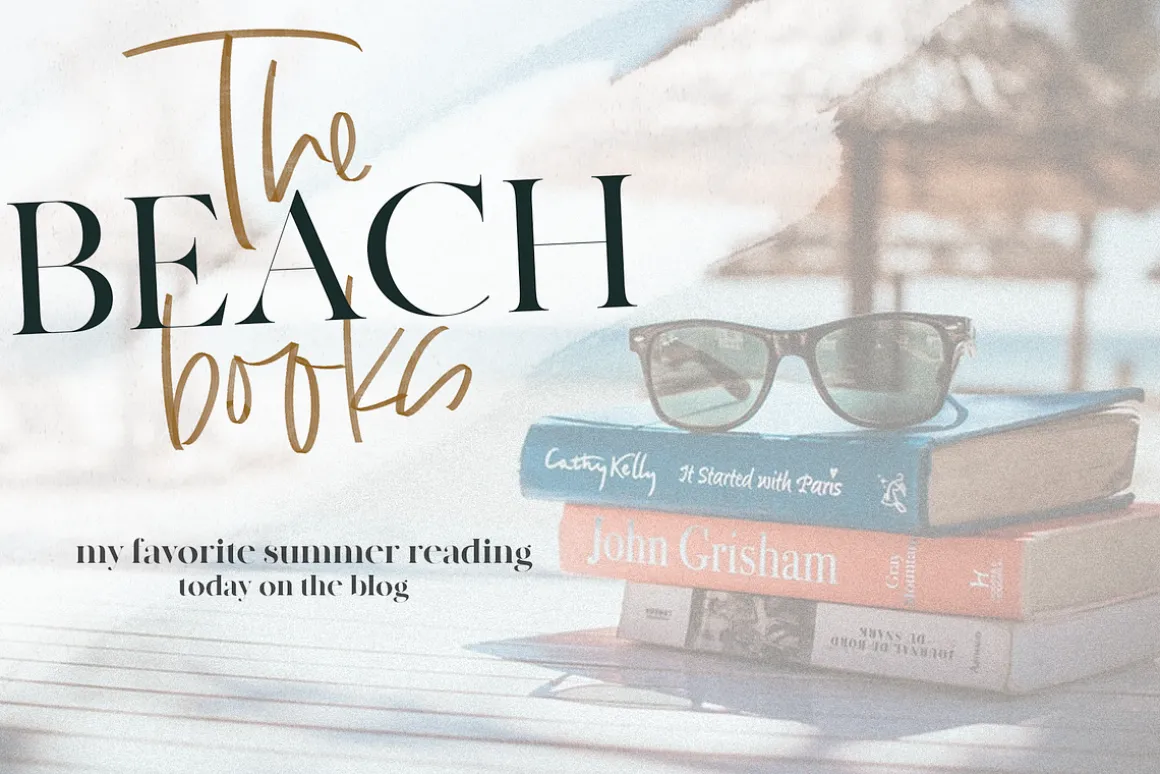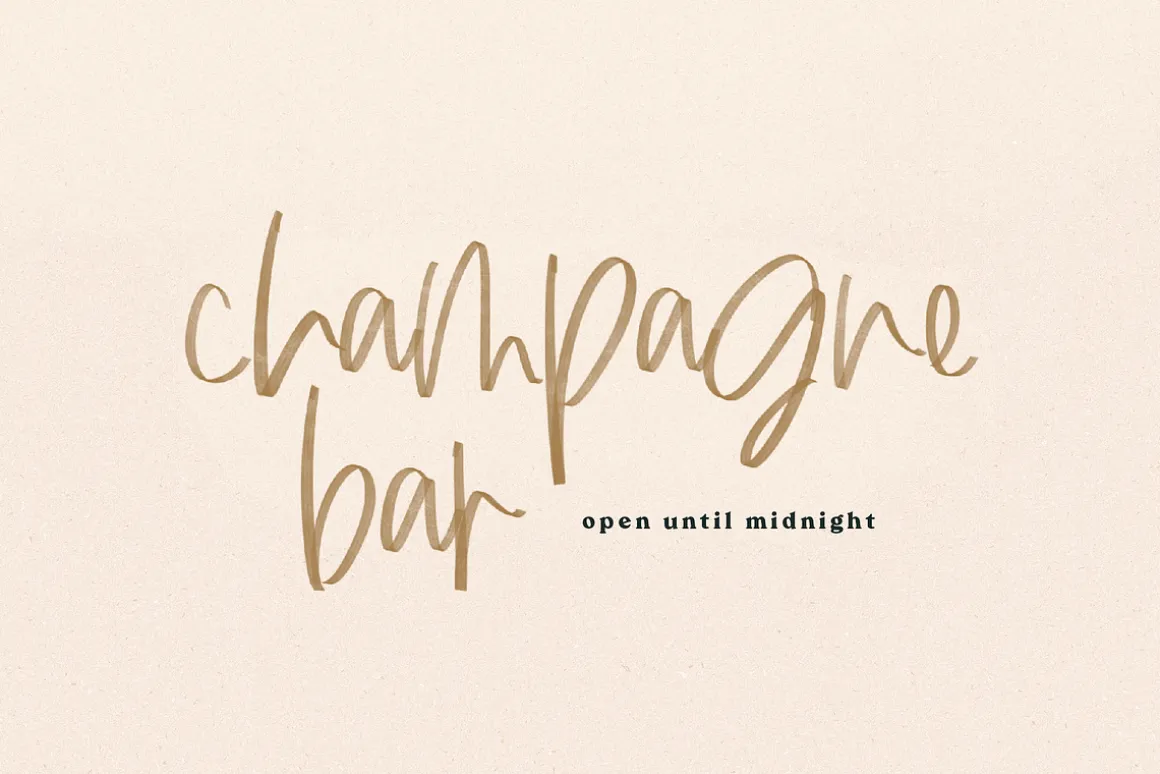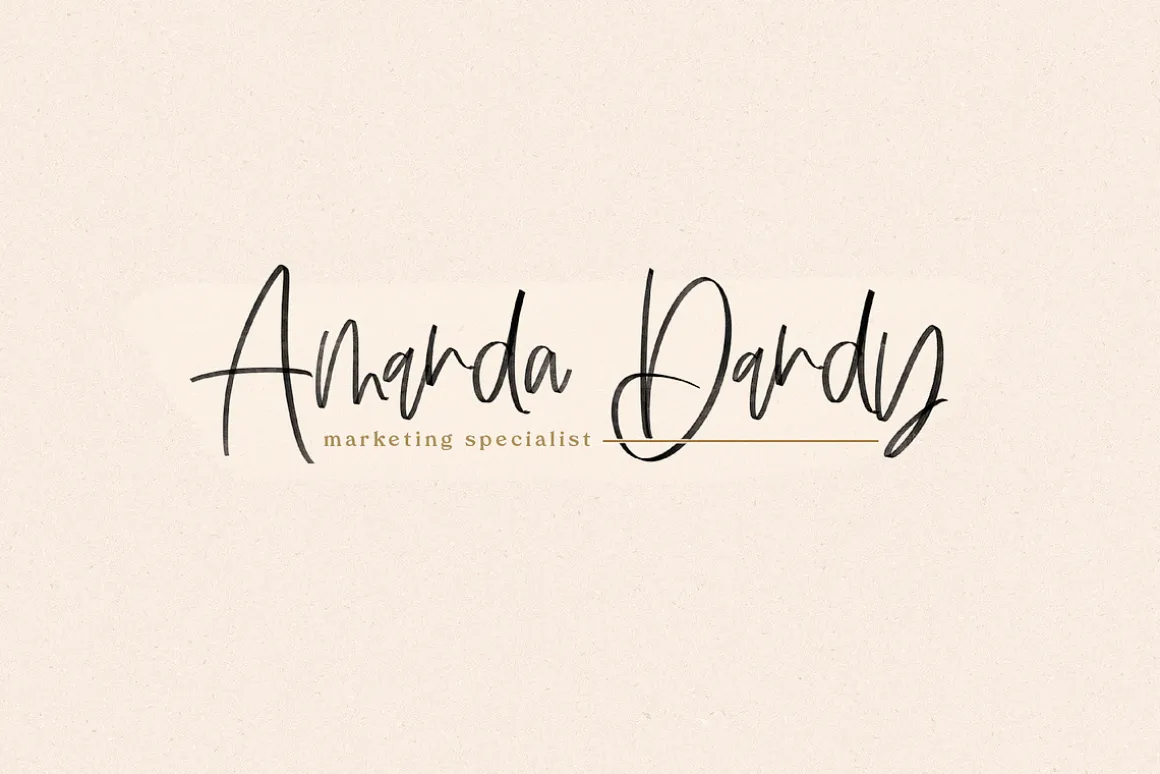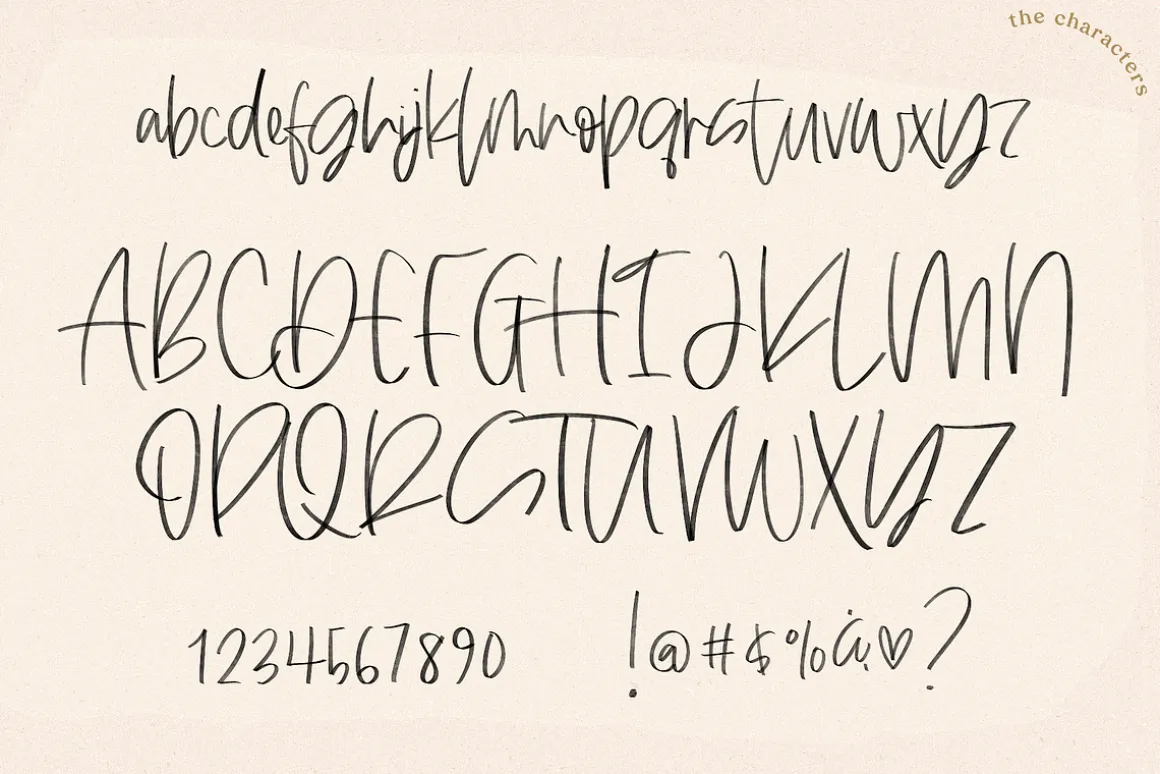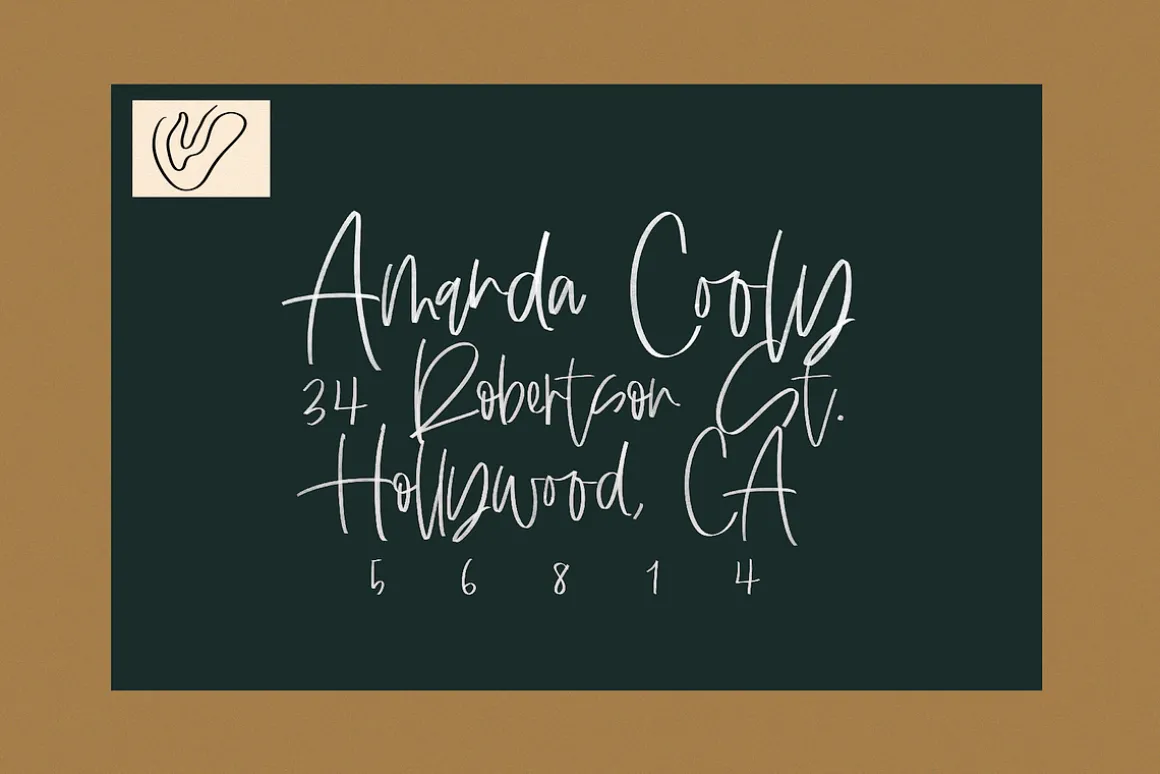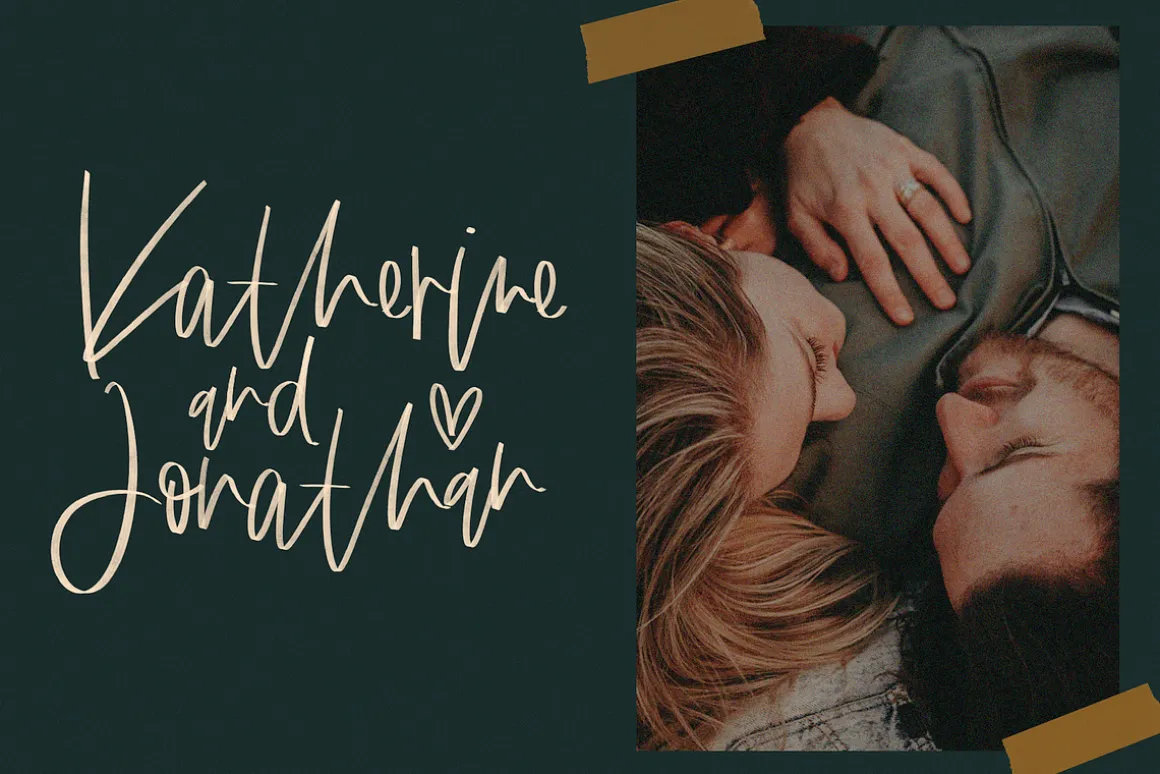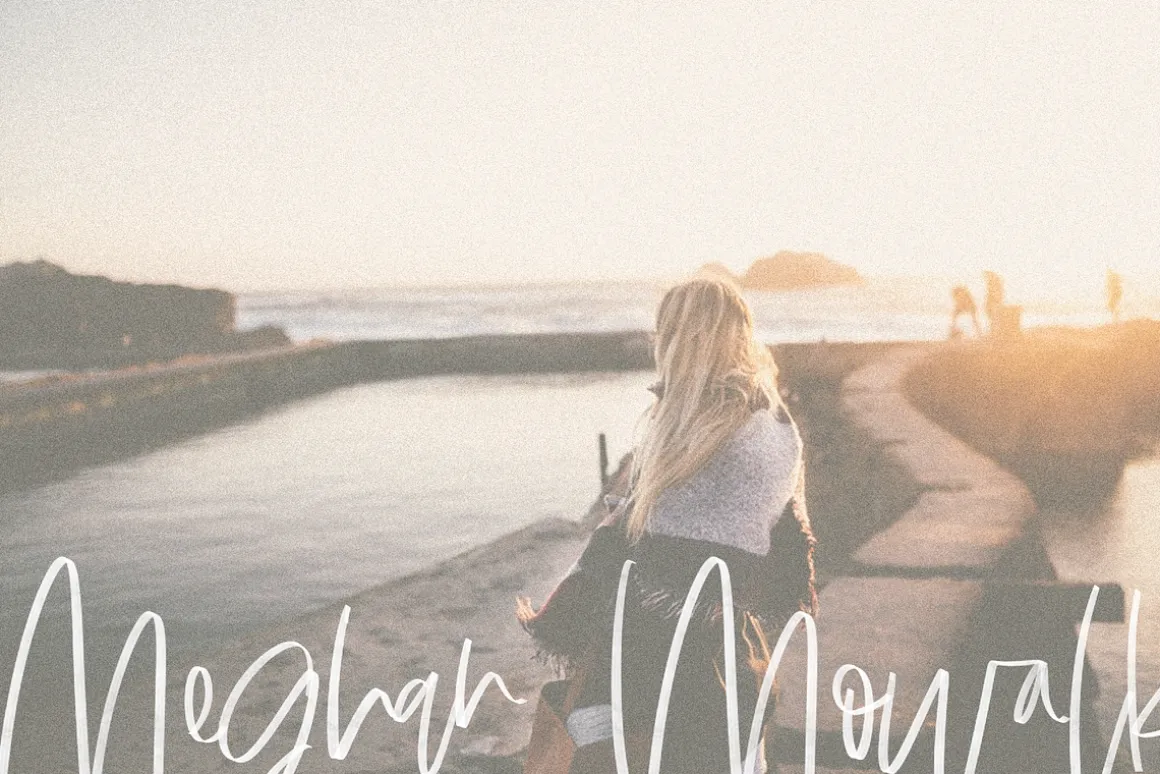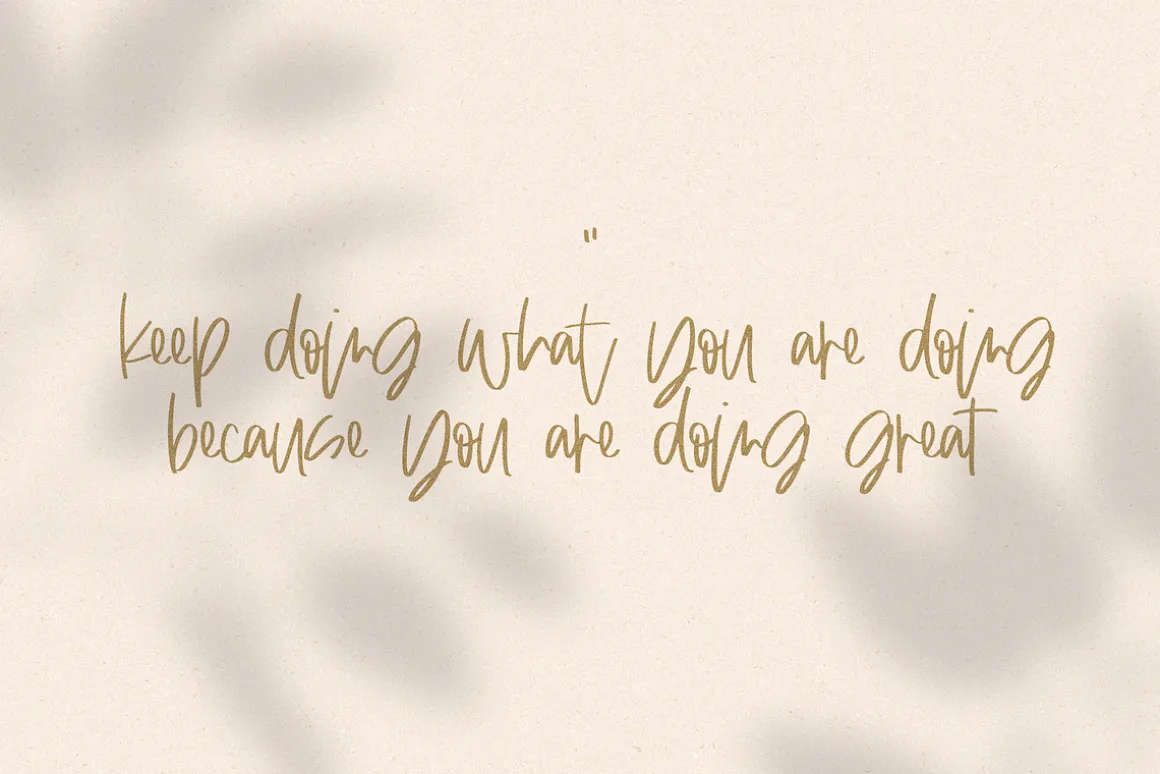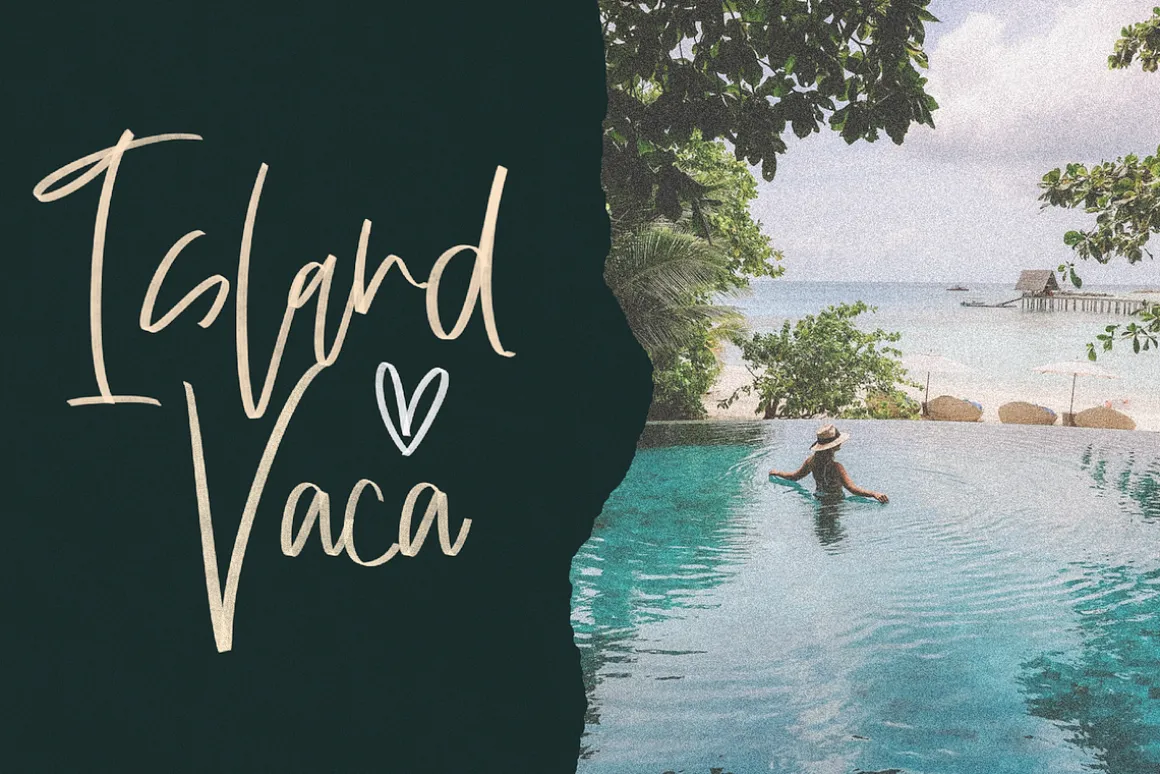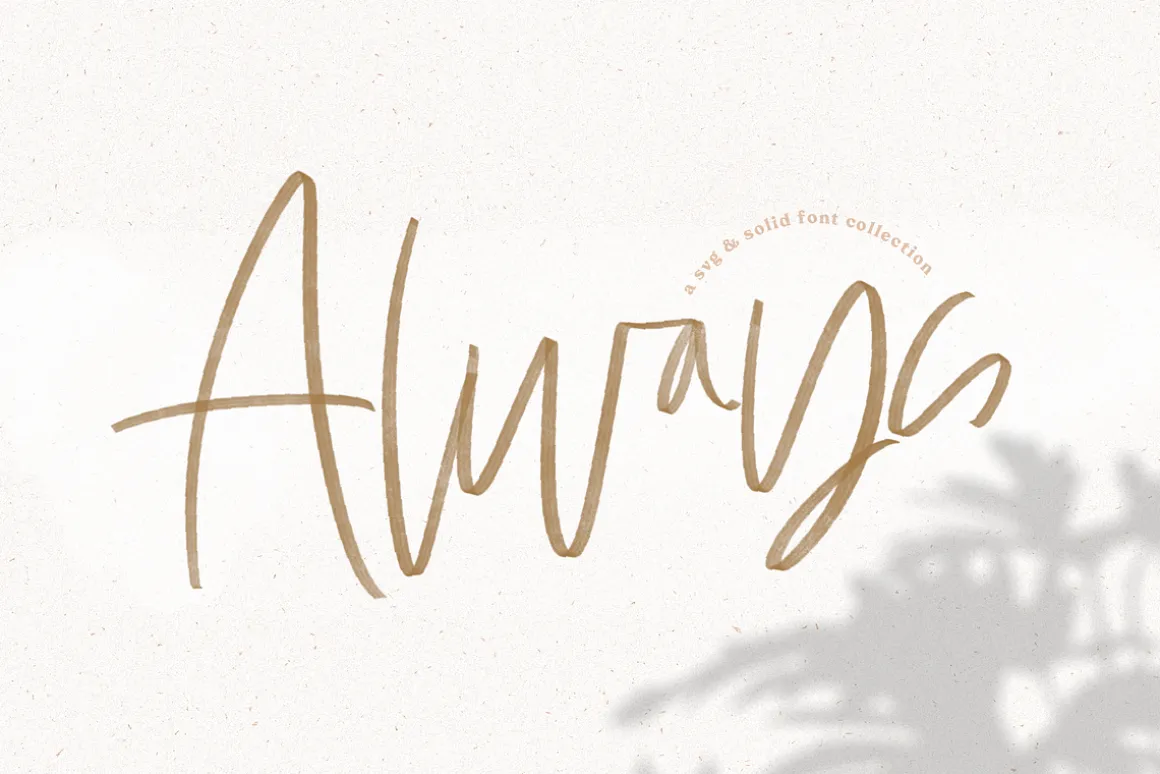
Always is handwritten font with an authentic look.
This modern calligraphy style font comes in both SVG and regular OTF formats.
Each letter has been drawn by hand keeping the untouched texture for the SVG font. If you are unable to access SVG fonts, a solid style is accessible.
Always is perfect for modern projects, headings, blogs, logos, brandings, invitations and more!